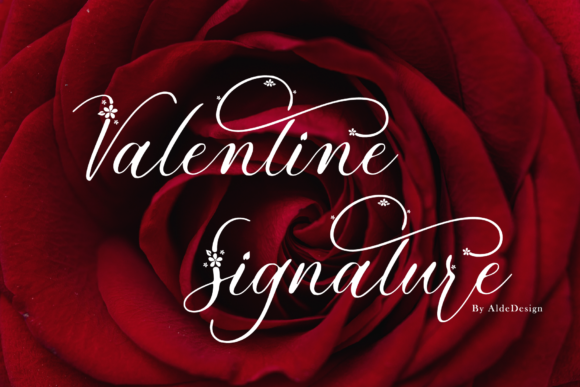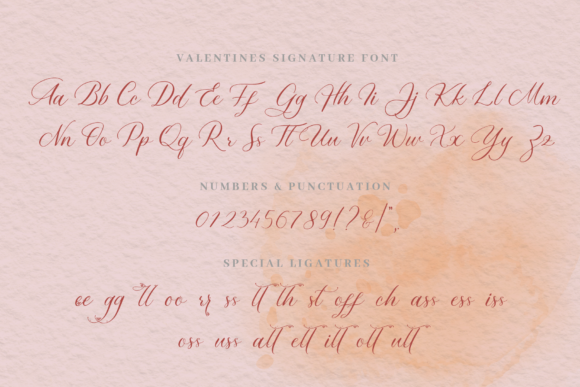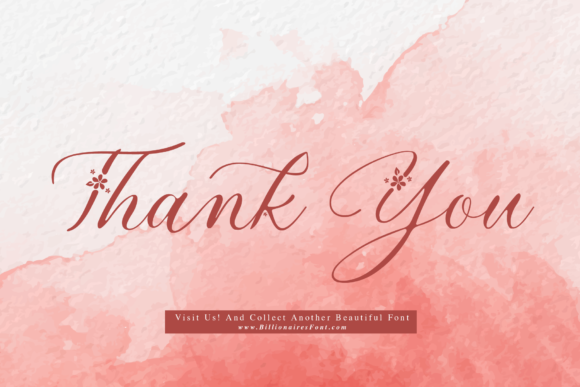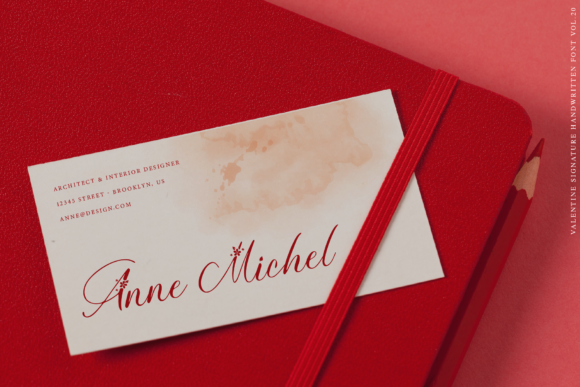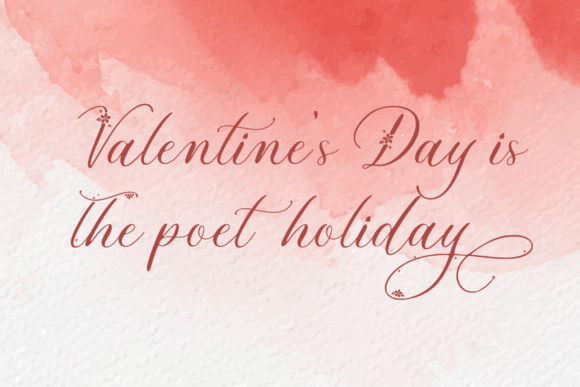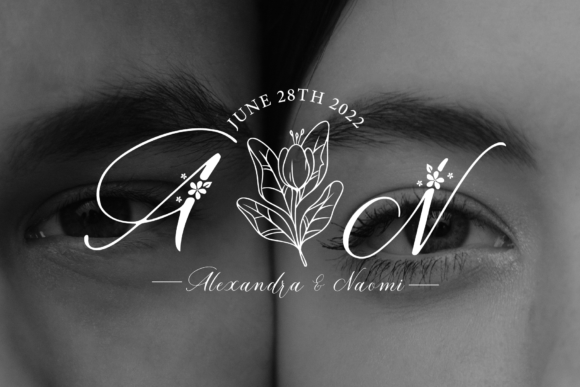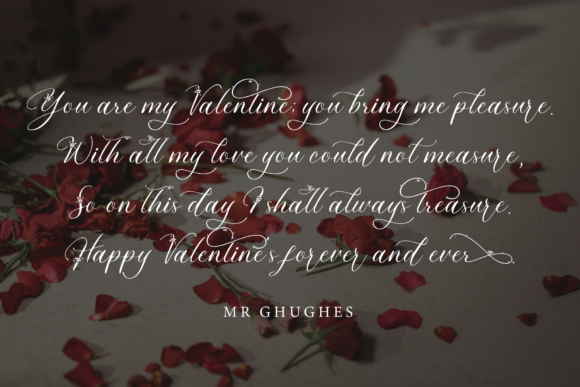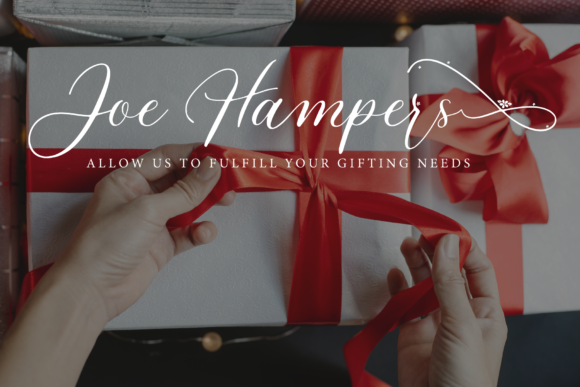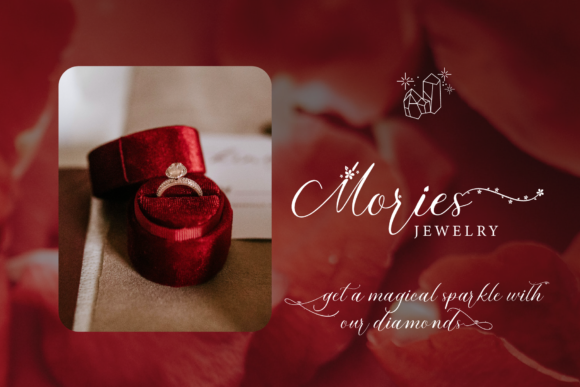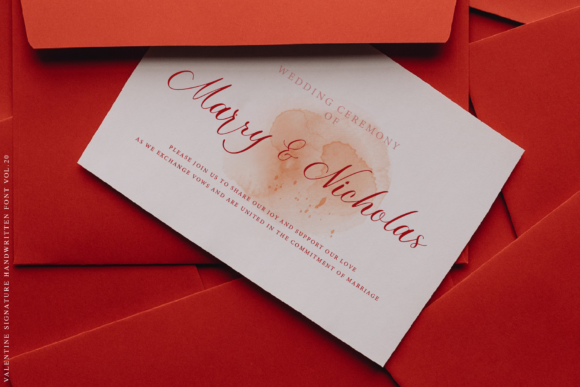
Valentine Signature Font
About Valentine Signature Font
Valentine Signature is a beautiful light handwritten font with a unique feel and a stunning impact. It will add a luxury spark to any design project you wish to create!